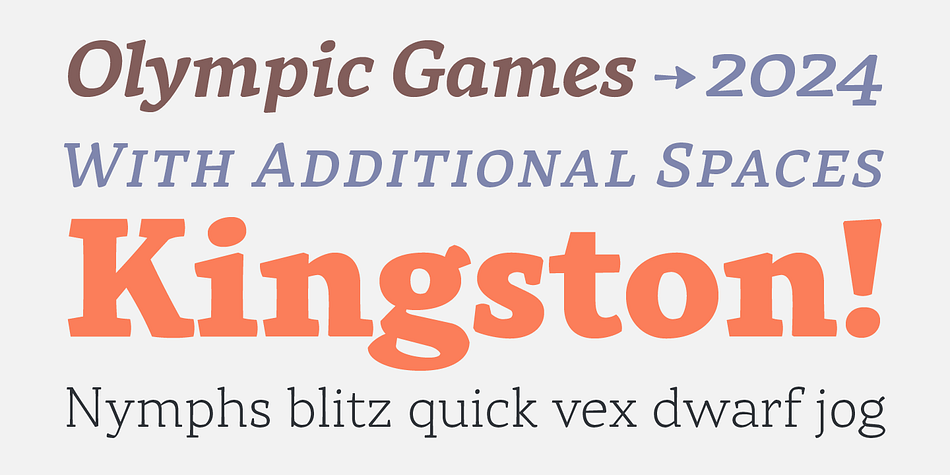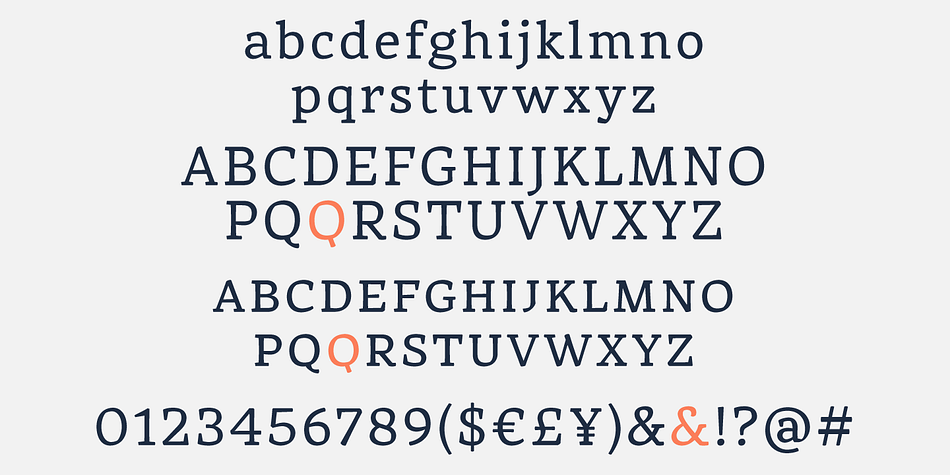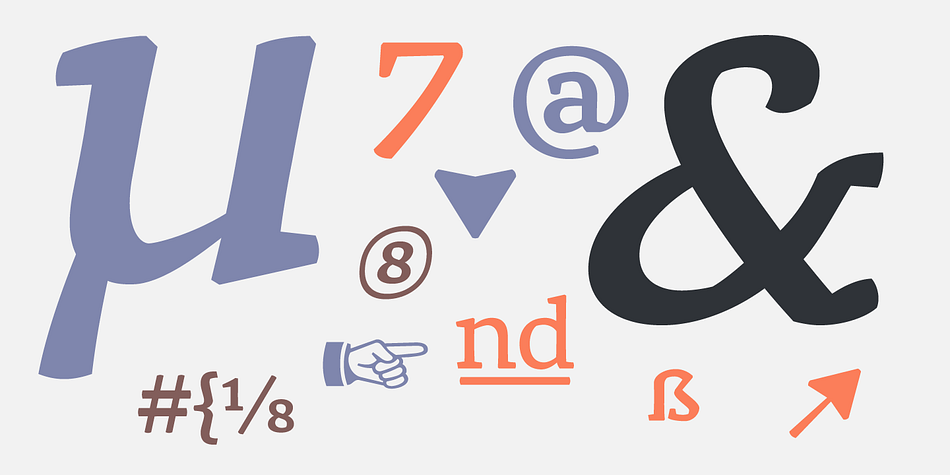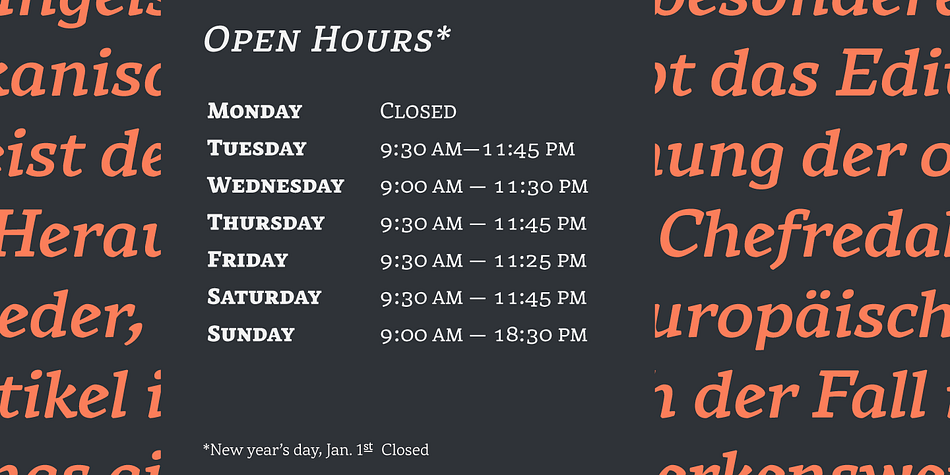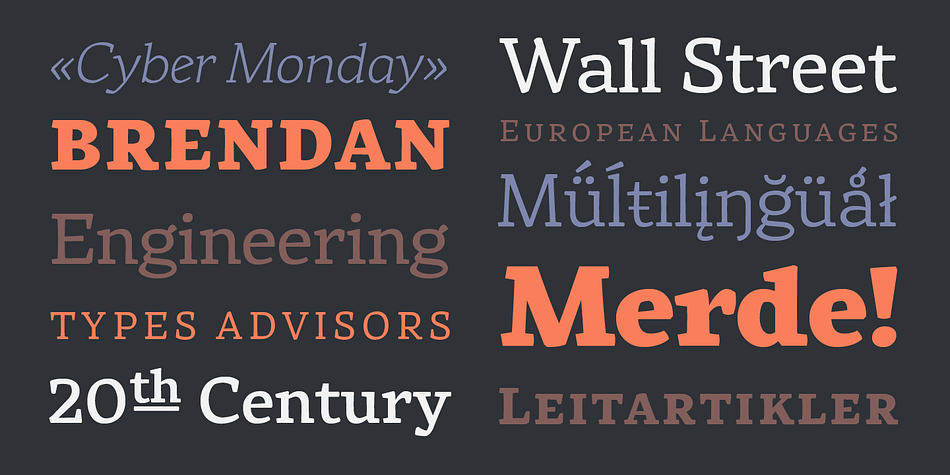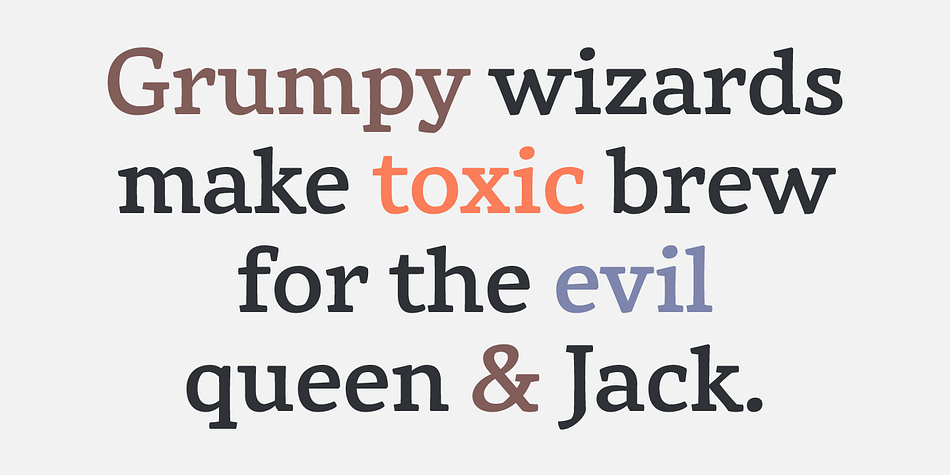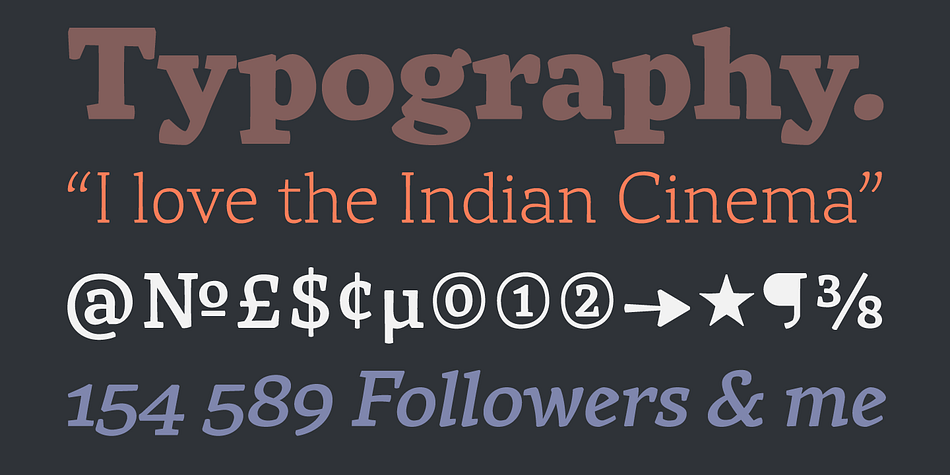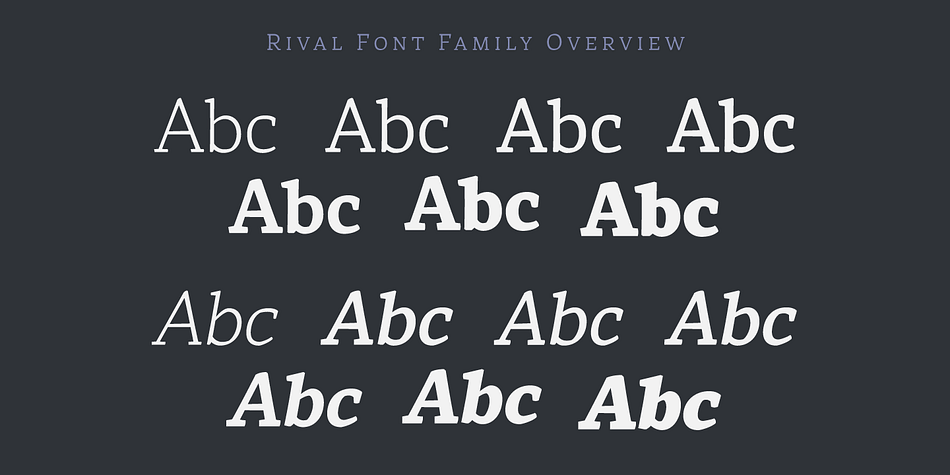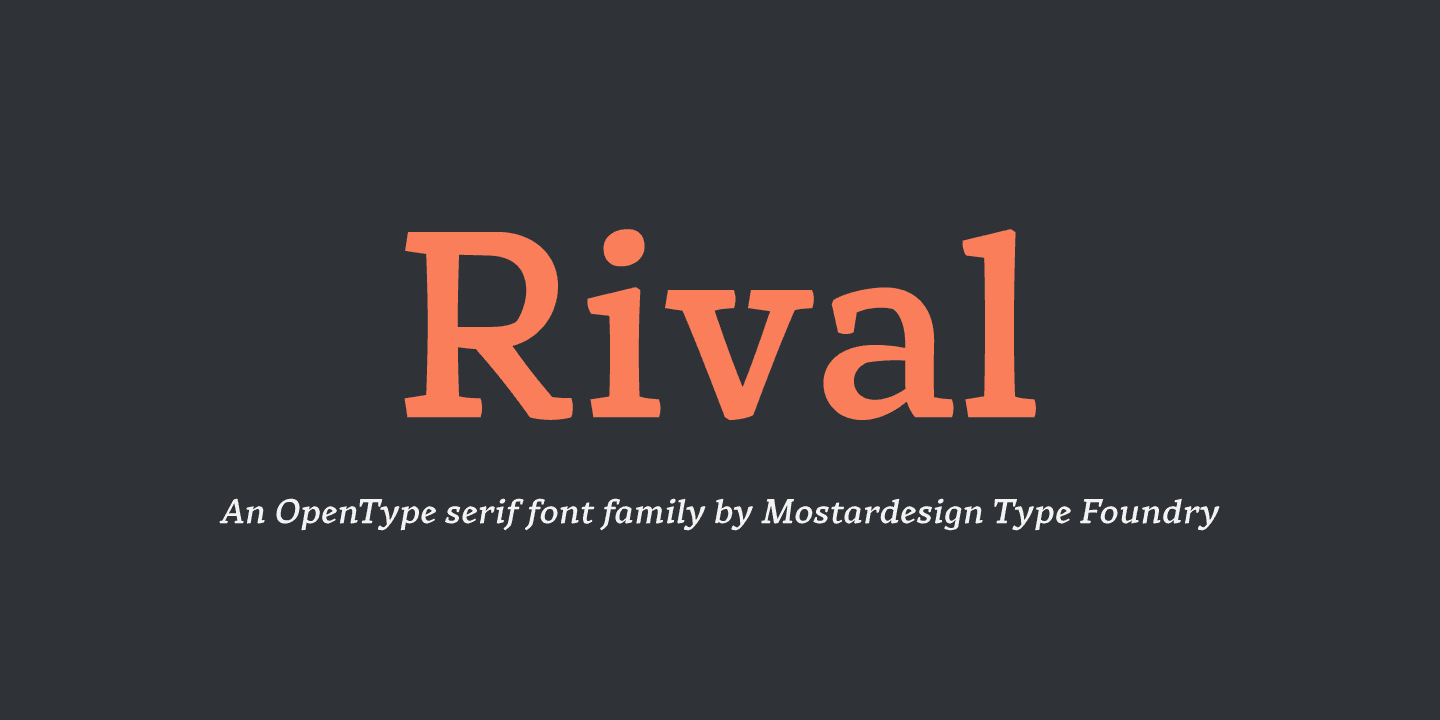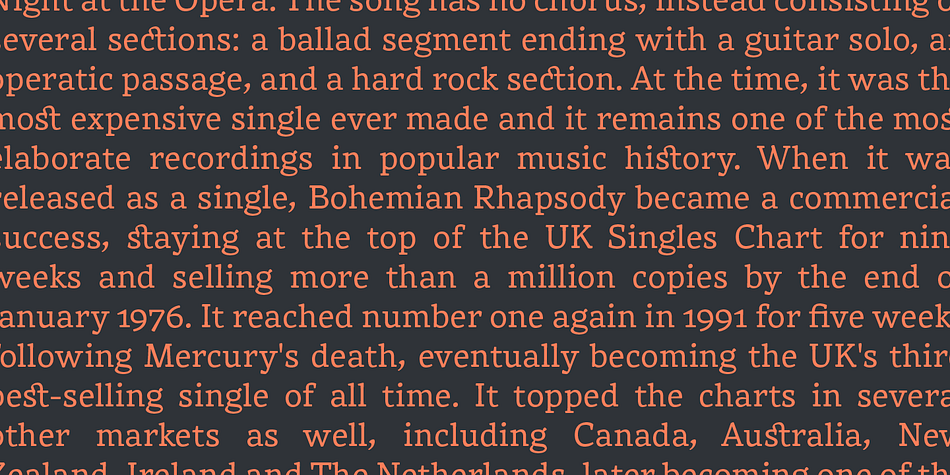
Designed by Olivier Gourvat, Rival is a slab serif font family. This typeface has fourteen styles and was published by Mostardesign.
Rival is a modern serif font family inspired by characters drawn with a round nib, it has many distinctive signs such as broken curves, slightly curved downstrokes, curved diagonals, and curved, slanted axes. All these typographic tokens gives Rival a modern and contemporary aspect for all kinds of graphic projects. It comes in 7 weights with corresponding italics and it’s suited for multiple purposes including display and editorial use, especially for advertising, long text, packaging and branding. Rival provides advanced typographical support with OpenType features such as small caps, ligatures, discretionary ligatures, old style figures, case-sensitive forms, slashed zero, fractions, and pro kerning.